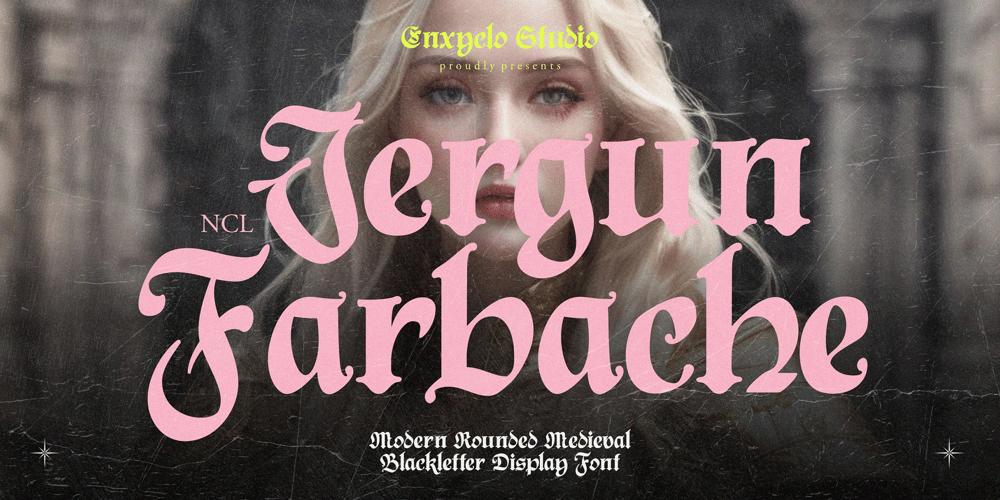
NCL Jergun Farbache Font Family was designed by Fahmi Mubarok and published by Enxyclo Studio. NCL Jergun Farbache contains 1 styles and family package options. NCL Jergun Farbache is a medieval rounded blackletter font. The letters are inspired from the middle ages with a blackletter style but have rounded corners which are unique and modern. Very suitable for creative projects that have a medieval theme or contemporary designs but have a classic touch. Its modern aesthetics bring a whole new dimension to your designs, making them stand out. Whether you’re working on a website, poster, logo, or any other project, this font adds that extra touch of innovation and sophistication. 228 Total Glyphs Uppercase & Lowercase Numeral, Punctuation & Symbols Multilingual Support